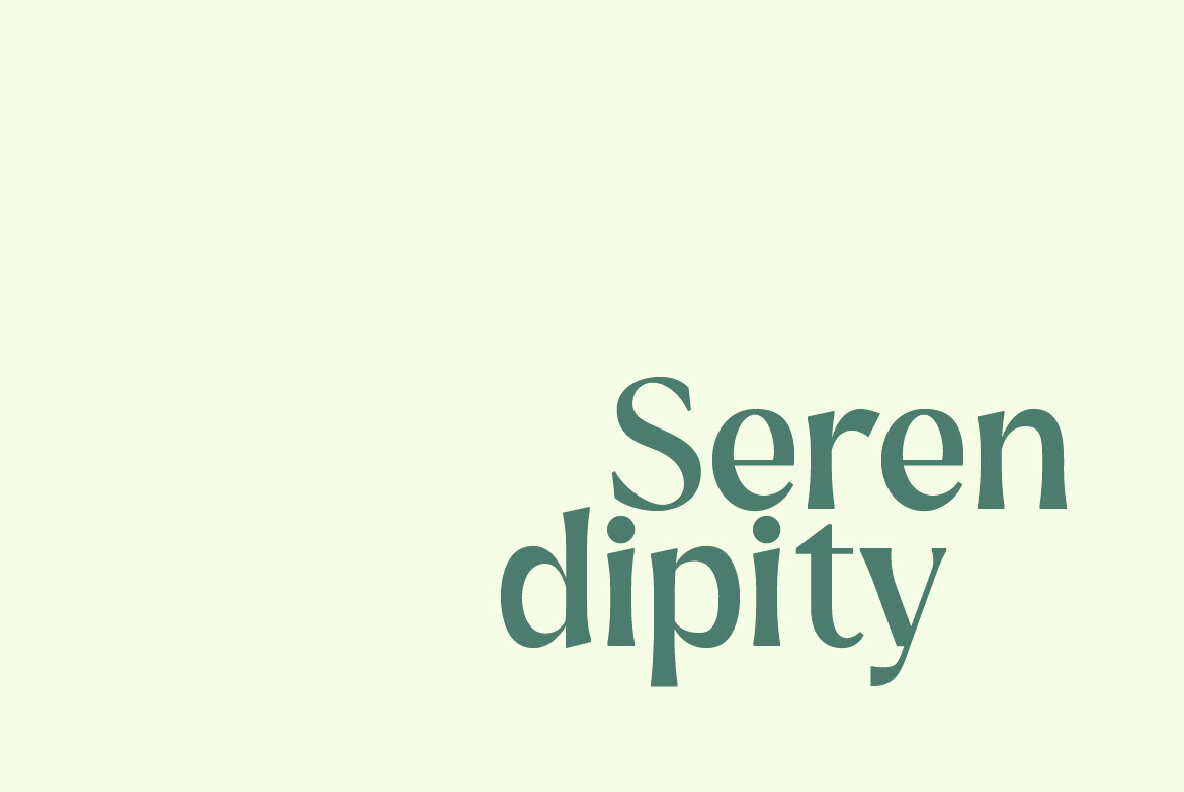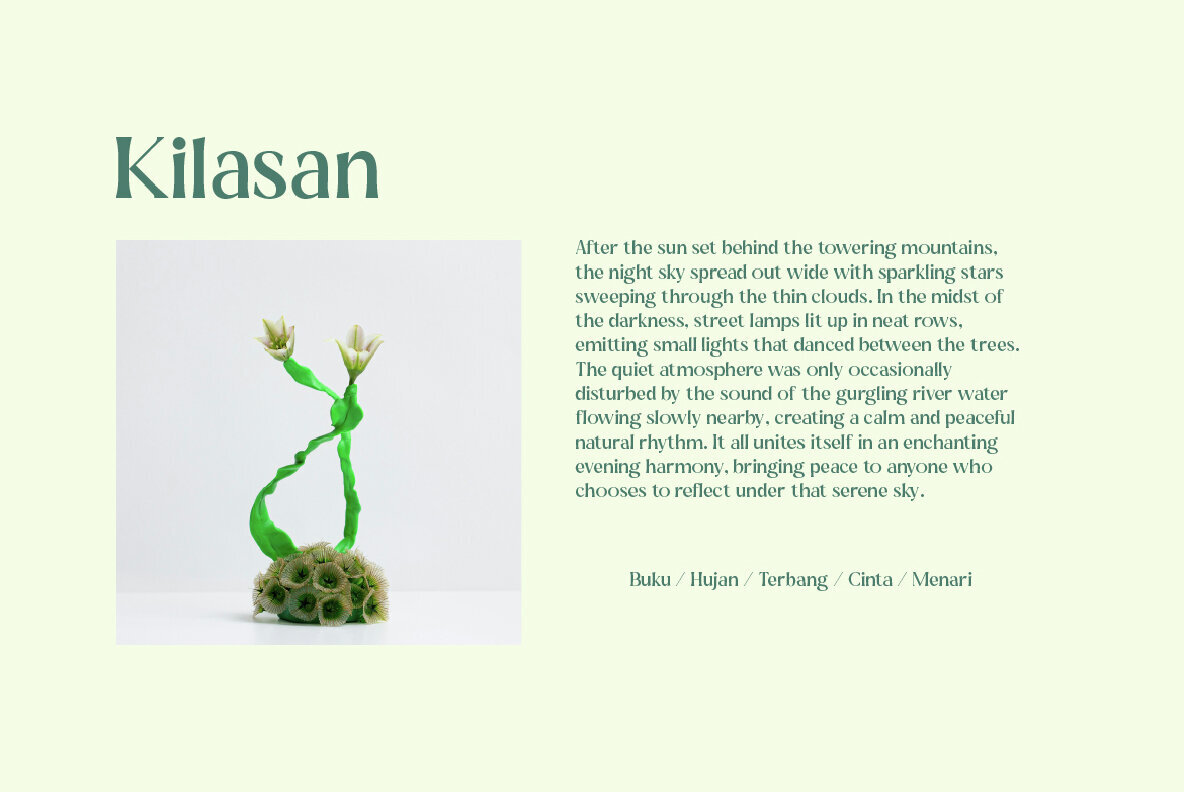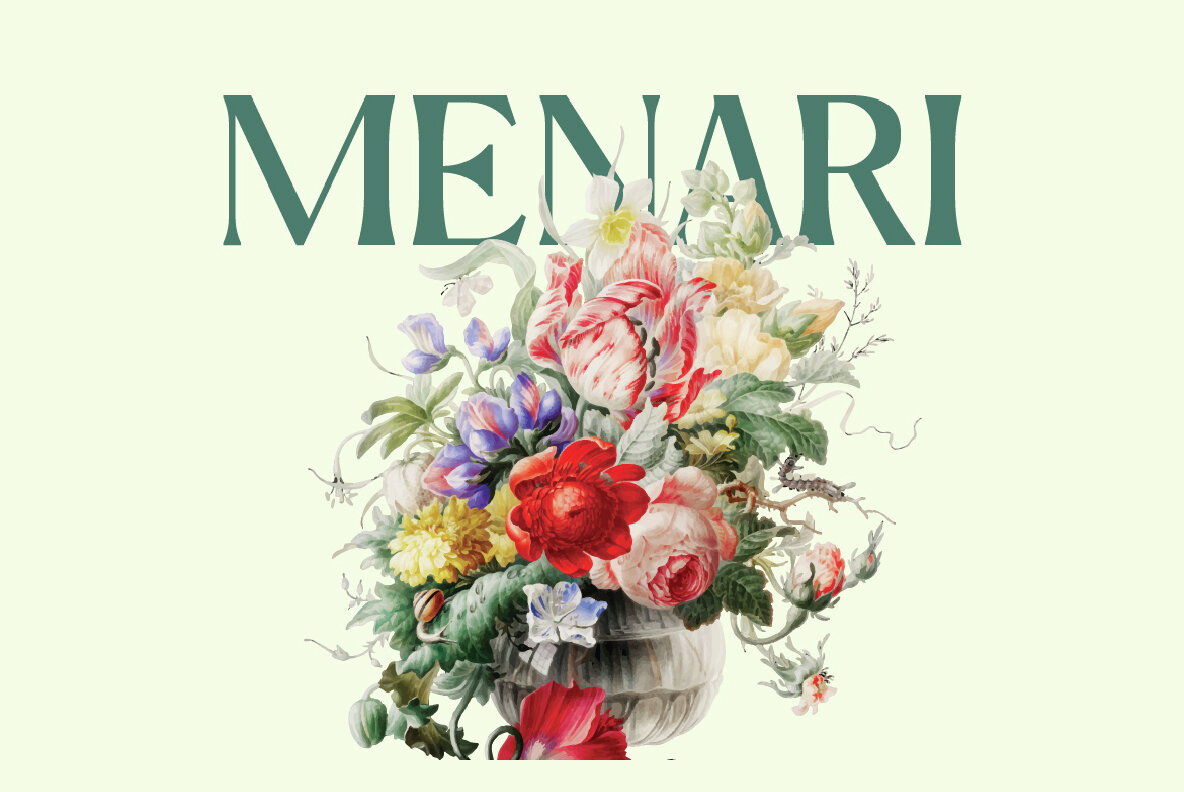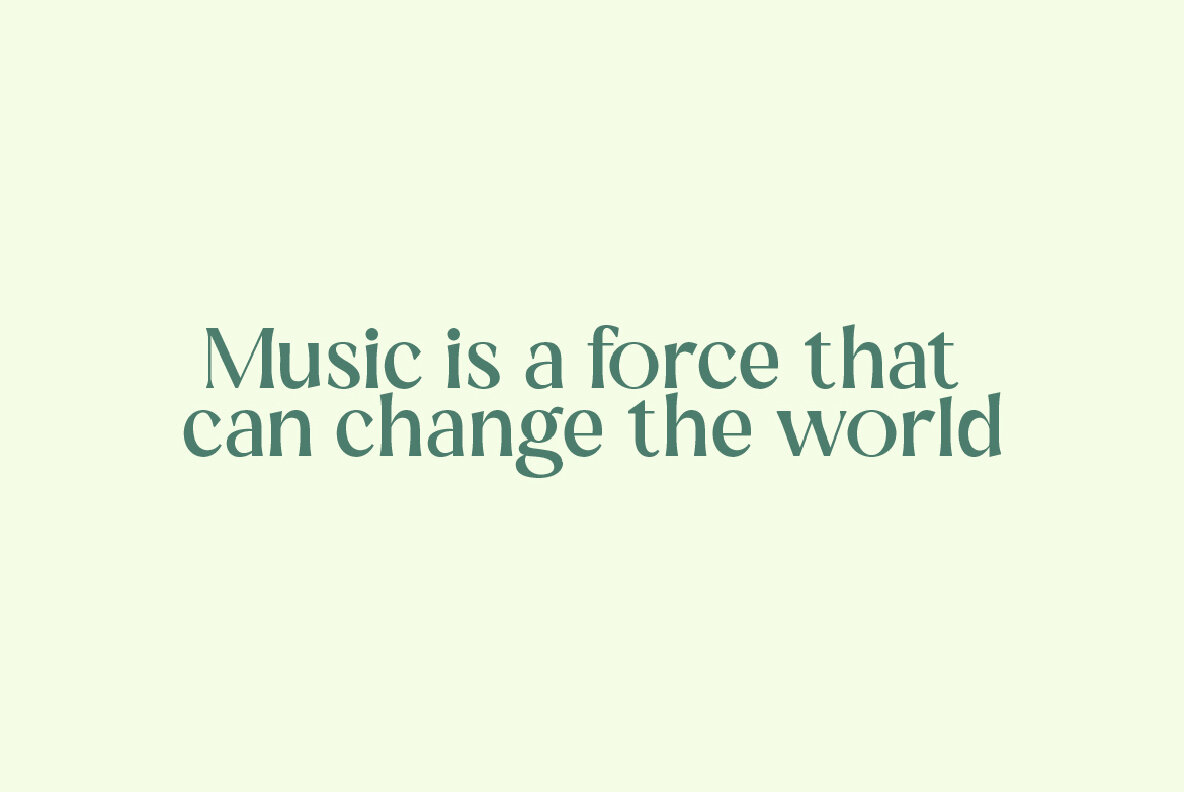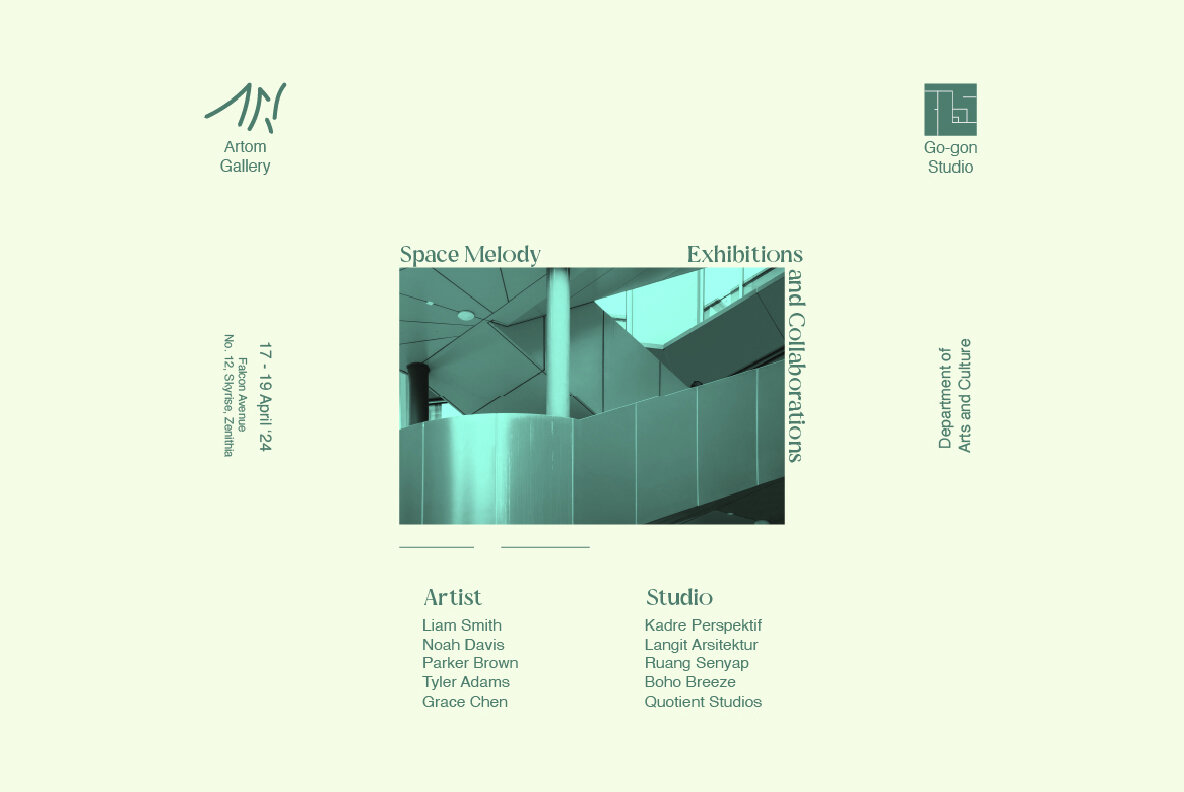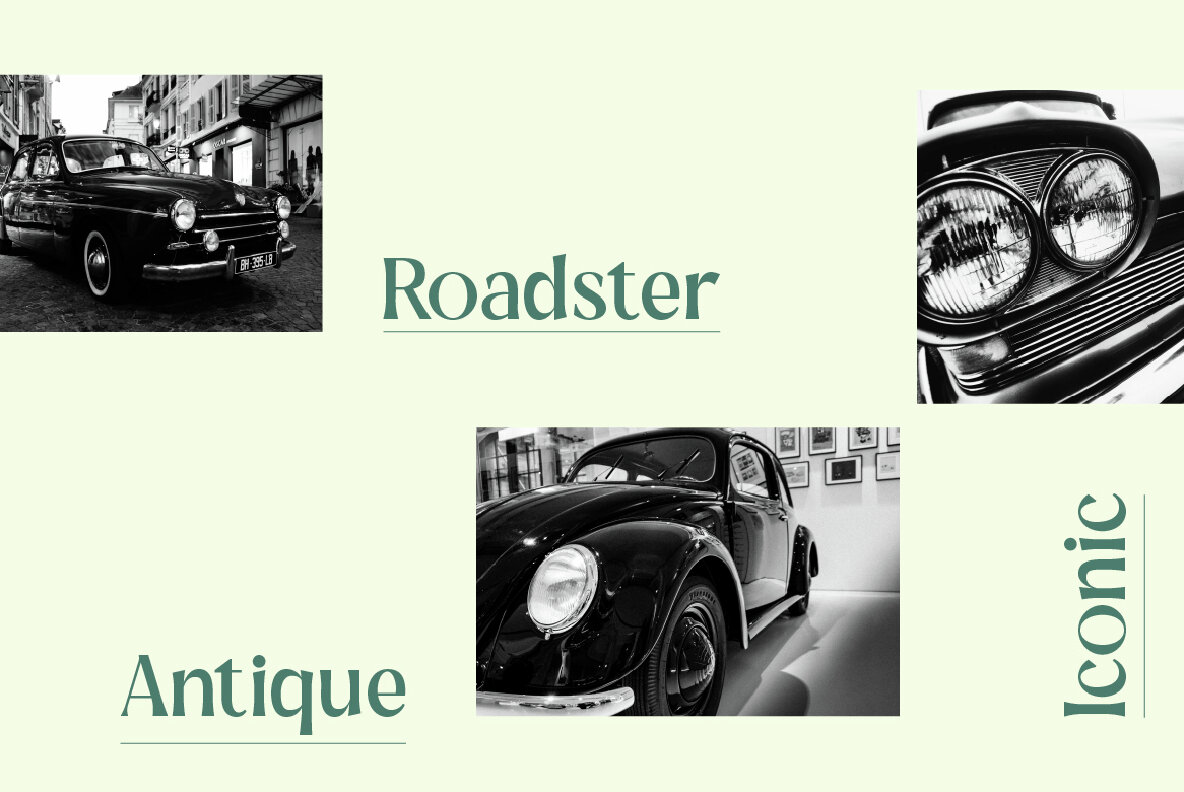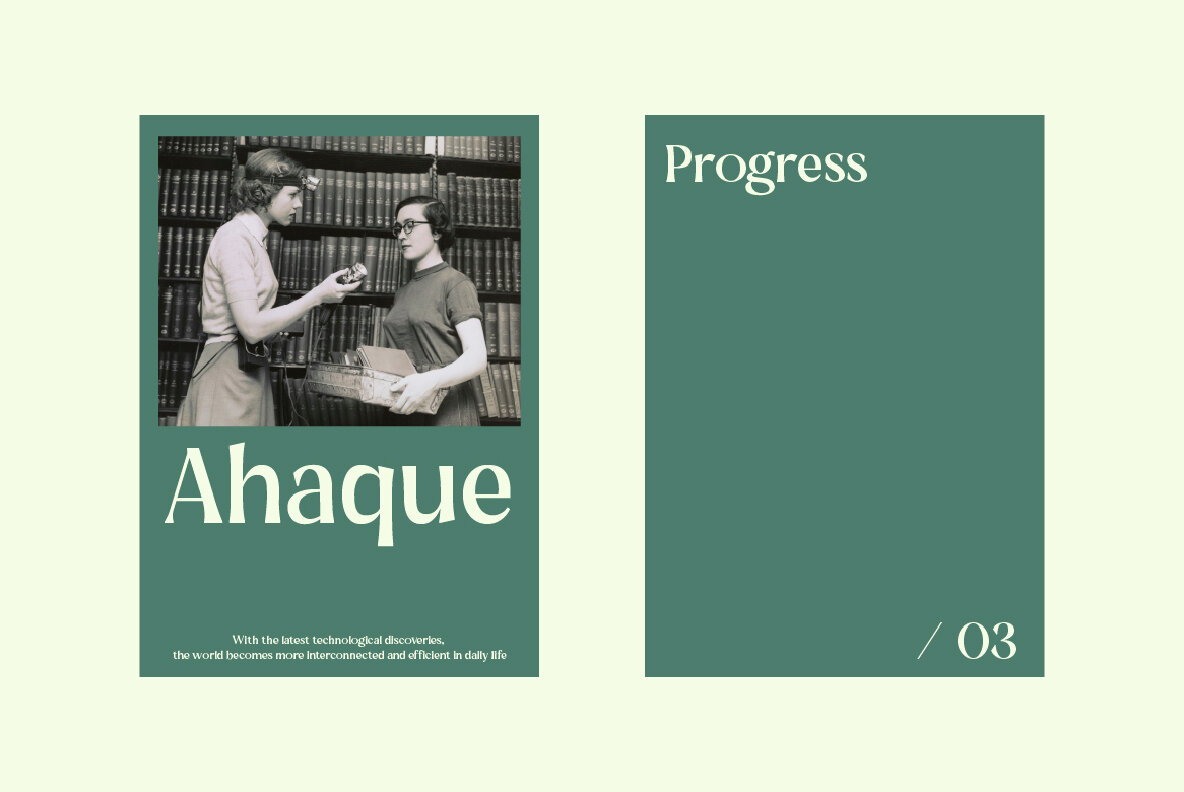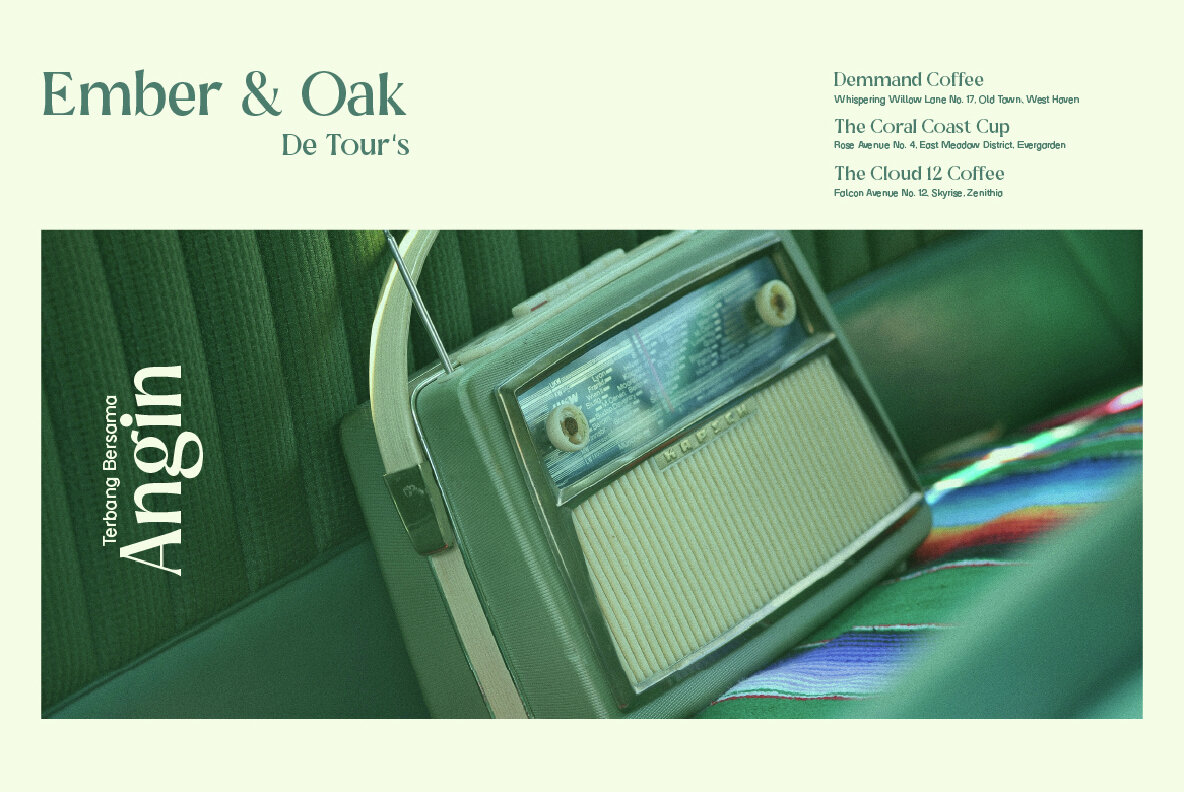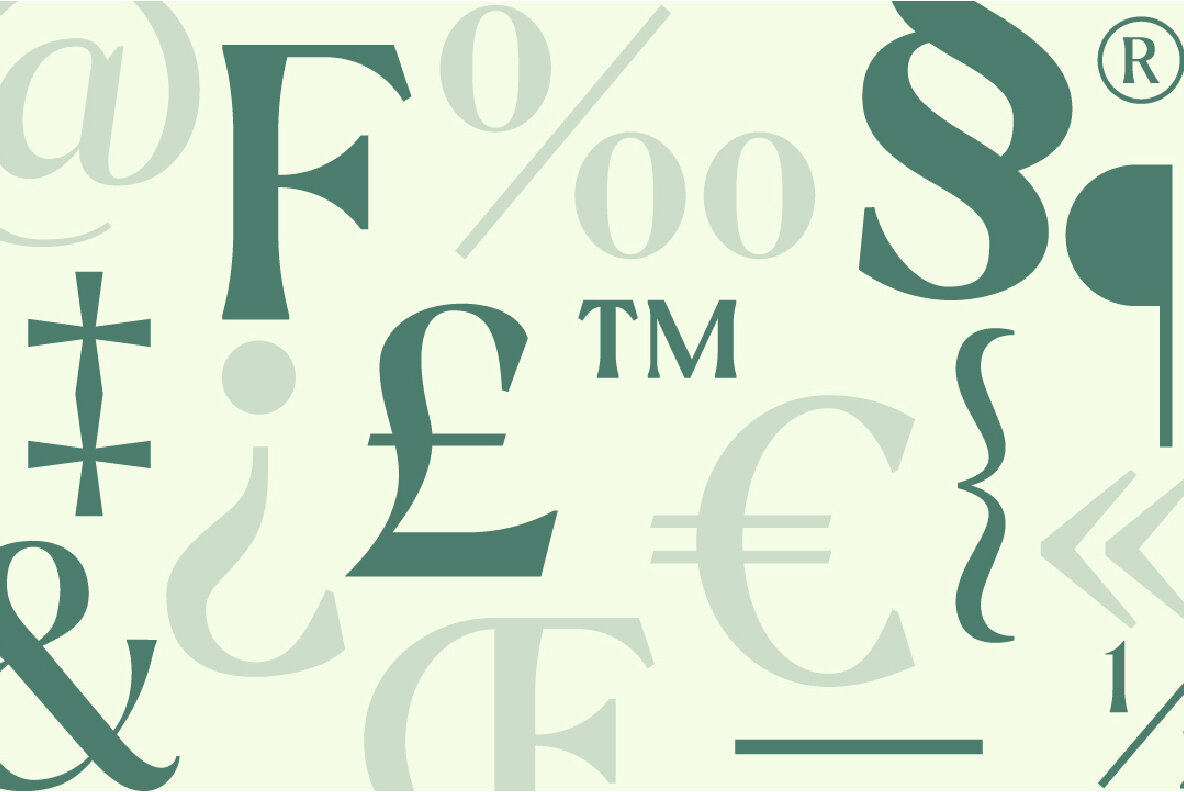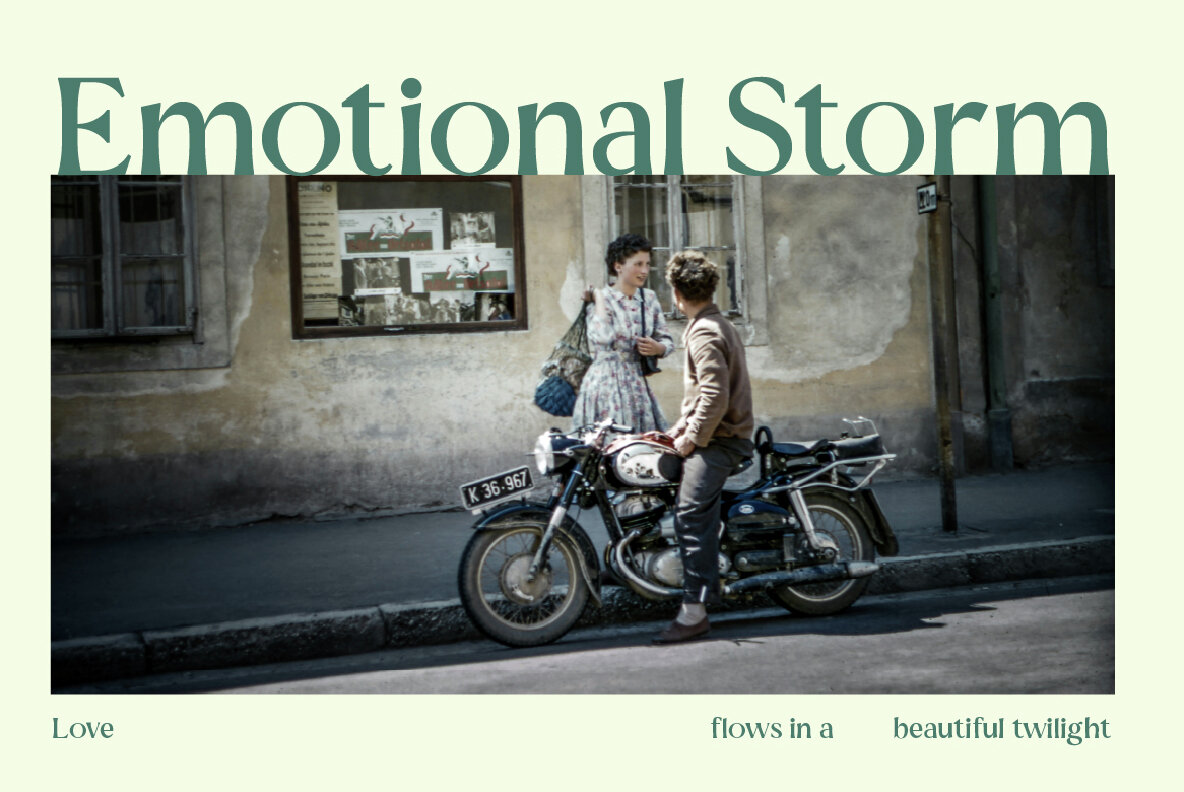
Fresy Font
Fresy Regular
Introducing Fresy, a captivating display serif font that breathes fresh sophistication into the typographic landscape. Derived from the word "Fresh," this font embodies a modern take on classic elegance, adding a contemporary flair to serif typography. Inspired by the gentle curvature of a fishing hook, "Fresy" features subtly thin serifs that taper delicately, creating a unique and refined aesthetic. With its clean lines and elegant proportions, "Fresy" exudes timeless charm and sophistication. Each character is meticulously crafted to strike the perfect balance between elegance and readability, making it an ideal choice for a wide range of design applications. From branding and publishing to film titles, advertising, and corporate materials, "Fresy" adds a touch of refinement and class to every project it graces. Elevate your designs with "Fresy" and experience the allure of a serif font reimagined for the modern era. Its fresh interpretation of classic elegance will breathe new life into your typography, leaving a lasting impression of sophistication and style across all your creative endeavors.